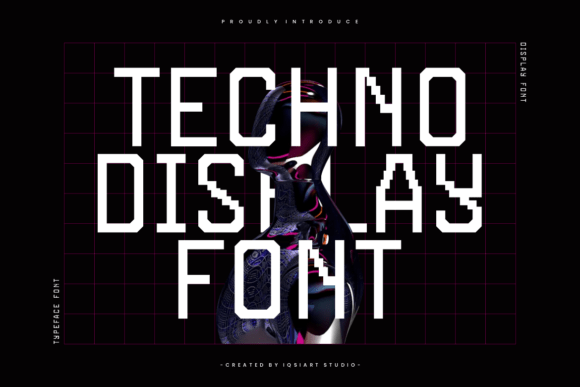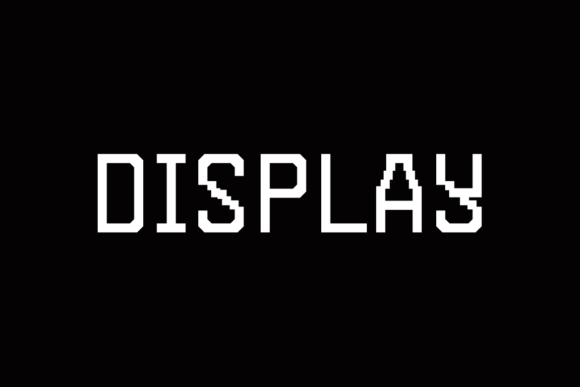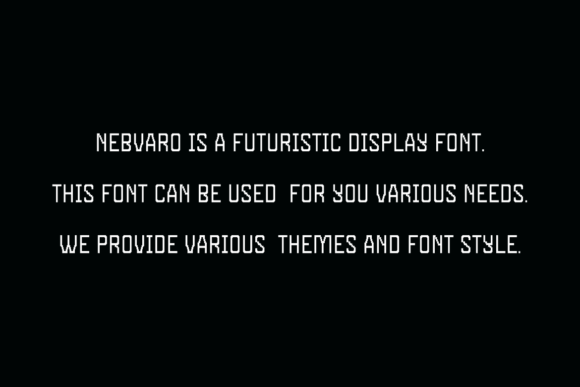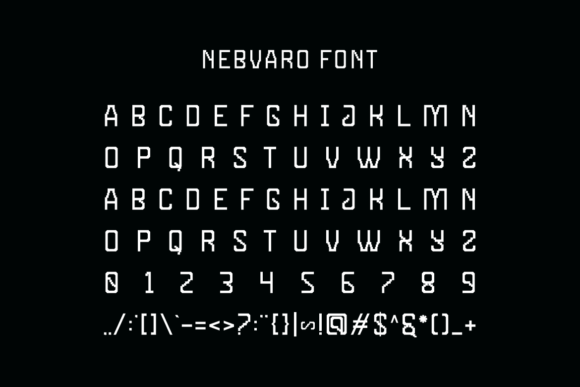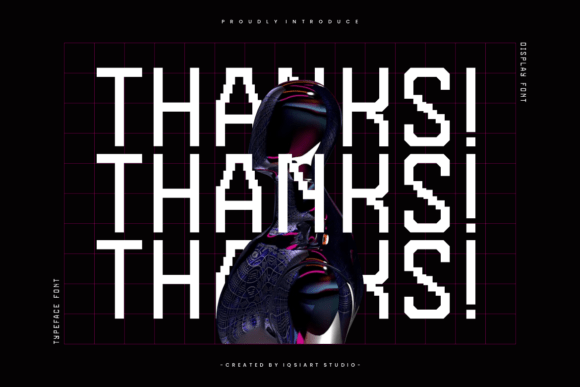
Introduction to Nebvaro Font
Do you remember the rush of excitement when you first booted up your old gaming console or computer? The futuristic beeps, the pixelated graphics, and the mesmerizing sounds of the early digital era. For designers, capturing that essence of retro futurism is a creative challenge. Enter the Nebvaro Font, a cutting-edge design resource that distills the aesthetic of early digital interfaces into a bold, high-quality typeface.
With its futuristic techno display style, the Nebvaro Font is perfect for designers seeking a bold typographic statement. Built with sharp angles, modular shapes, and squared-off curves, this font echoes the nostalgia of retro arcade screens and early computer interfaces. Its unique visual rhythm, created by a tall, narrow structure and stylized interruptions, reinforces its glitch-era identity.
Key Features of Nebvaro Font
- Features a unique, modern aesthetic that can elevate any design
Honest Review: Nebvaro Font
As a designer, I’m always on the lookout for high-quality design resources to elevate my creative projects. The Nebvaro Font caught my attention with its sleek and modern design.
What works well: ✨ The font is highly customizable, with a range of weights and styles to choose from. The transparent background feature allows for seamless integration with images and backgrounds, making it a great addition to any design project.
- Wide range of weights and styles
However, I did encounter some limitations: ⚠️ The font can be a bit too modern for some projects, and the lack of historical or vintage styles may be a drawback for designers looking for a more nostalgic feel.
Tips for Getting the Most Out of Nebvaro Font
To get the most out of the Nebvaro Font, use it in combination with other design elements, such as images and graphics. Experiment with different font sizes, colors, and styles to create a unique look.
The Nebvaro Font is perfect for a variety of creative projects, including logos, business cards, and brochures. Its unique style makes it ideal for branding and marketing materials.